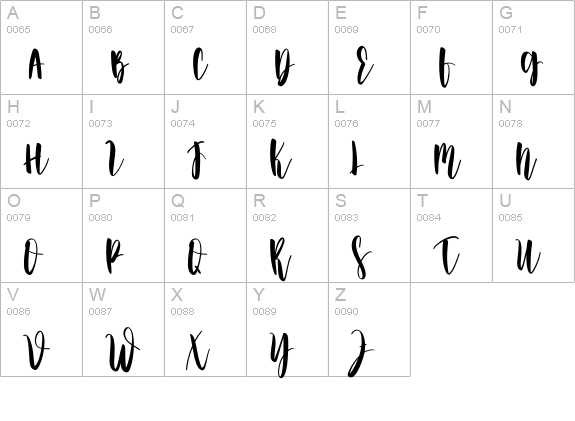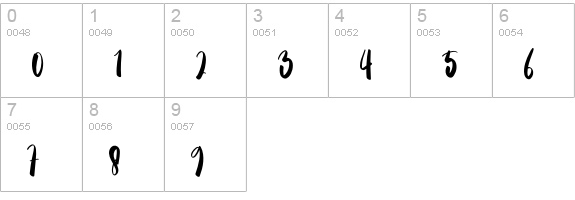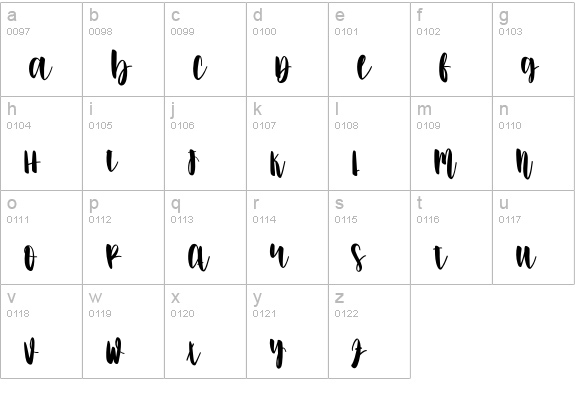
Santaclaus Font Details
Santaclaus is a free for personal use font in the Script > Handwritten category, designed by scratchones. It has been downloaded 1 times and is available for Windows, Mac and Linux.
Introducing Santaclaus font, a whimsical and festive typeface perfect for adding a touch of holiday cheer to your designs. This charming font captures the spirit of Christmas with its playful and decorative style, making it ideal for greeting cards, invitations, posters, and more. With its unique characters and decorative elements, Santaclaus font is sure to bring a smile to your audience's faces.